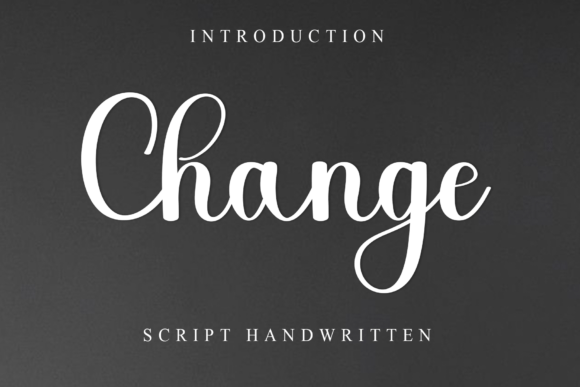
Deck the Halls with Typography: Discover the Magic of Change Font
There’s something special about gathering around the Christmas tree, surrounded by loved ones, and exchanging thoughtful gifts. It’s a time for joy, laughter, and creativity. As a designer, you’re likely no stranger to the magic of typography in capturing the essence of the holiday season. That’s why we’re excited to introduce you to Change Font, a festive and merry typeface that embodies the spirit of the season.
With its decorative elements and whimsical flair, Change Font is perfect for adding a touch of enchantment to your designs, from greeting cards and gift tags to holiday-themed projects. Its PUA encoding makes it easy to access all the amazing glyphs and ligatures, giving you the freedom to let your typography shine with the magic of Change Font.
Key Features of Change Font
- Choose a new font from the drop-down list or search for a specific font.
- Adjust font size, color, and other settings as needed.
Tip: Use Adobe’s font libraries to access a vast collection of fonts and font styles.
To change font in PowerPoint or Word, follow these steps:
- Go to the “Home” tab.
- Choose a new font from the drop-down list or search for a specific font.
- Adjust font size, color, and other settings as needed.
Tip: Use PowerPoint’s font styles to add emphasis and visual interest to your presentations.
Change font to:
- Make text stand out and grab attention.
- Match the tone and style of your design or brand.
- Convey a specific message or emotion through font choice.
Alternatives to “Change Font” for Designers
1. Typography Manager
The Typography Manager is a feature that allows designers to manage and apply typography styles to various elements within a design. It provides a more comprehensive approach to font management, enabling designers to create and apply custom font styles, including font sizes, line heights, and font families. Use the Typography Manager when you need to apply complex typography styles or when you want to maintain consistency in your design.
Comparison to Change Font: The Typography Manager offers more advanced features and flexibility compared to the Change Font option. While Change Font allows you to change the font of a single element, the Typography Manager enables you to manage typography styles across multiple elements and create custom font styles.
How do I ensure my font is legible at different sizes?